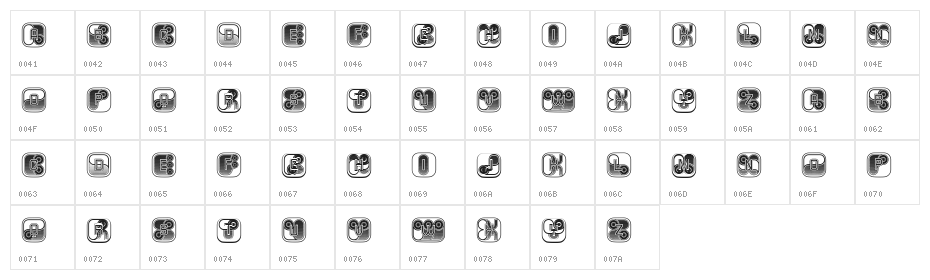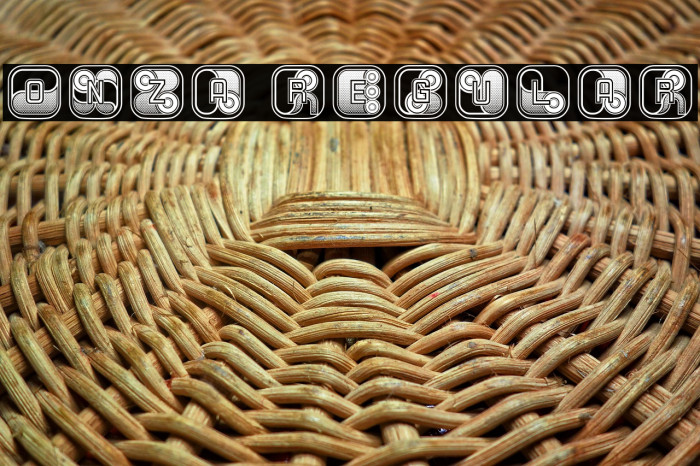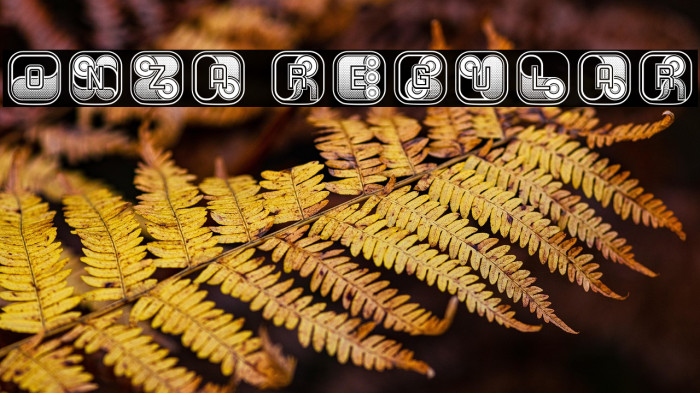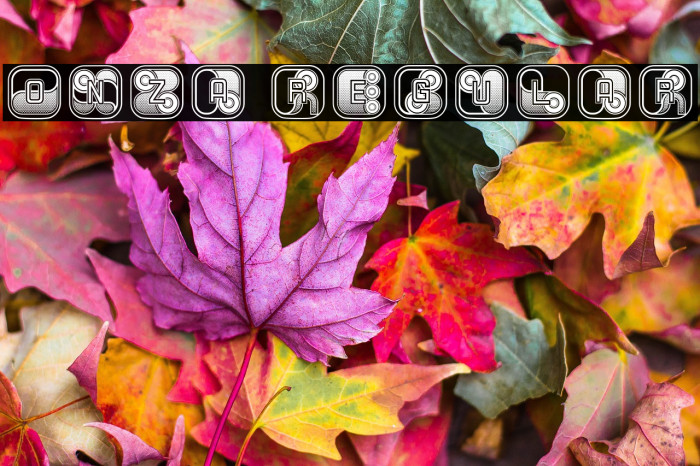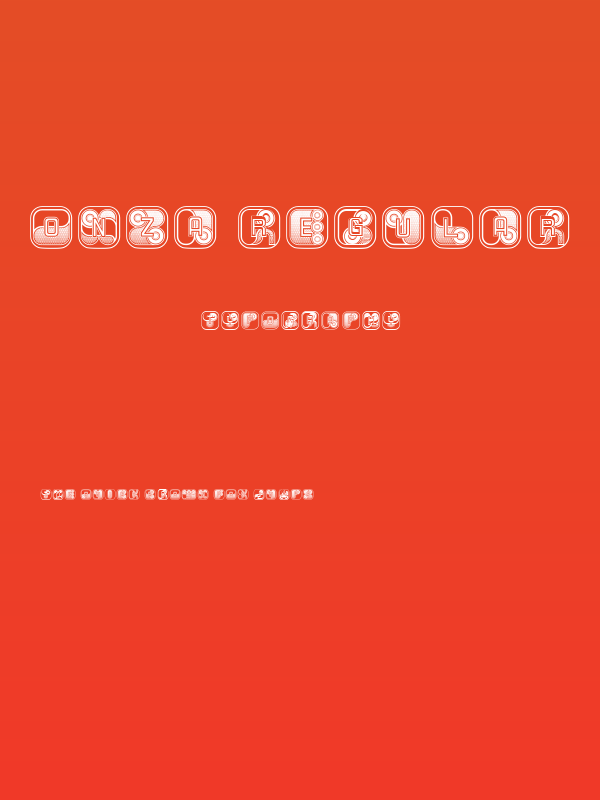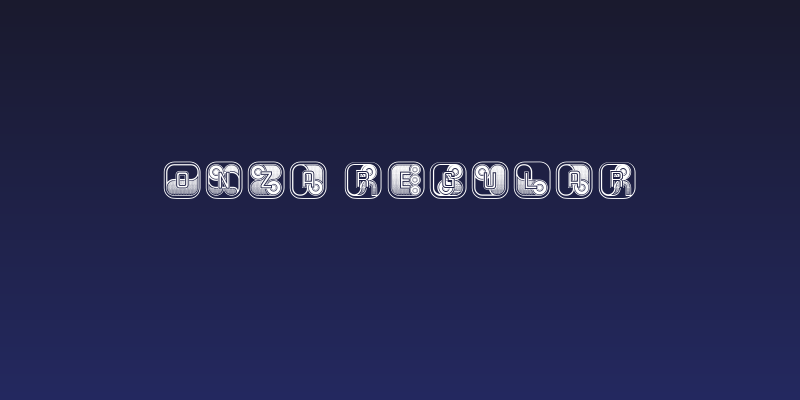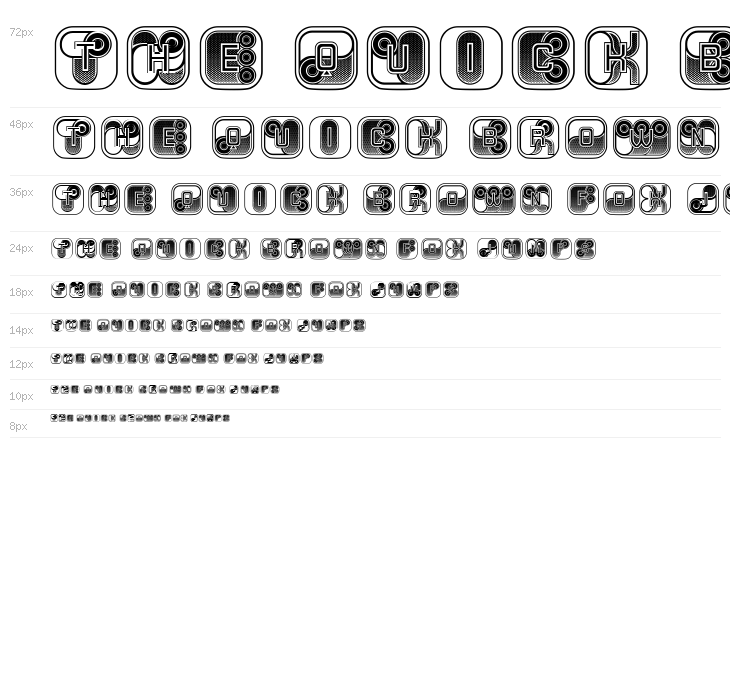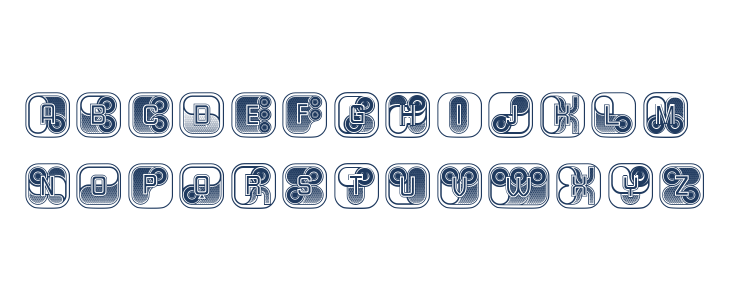
Onza Regular Font
Onza Regular Description
This font features a bold, decorative style with a unique three-dimensional effect. Each character is enclosed within a rounded square, creating a distinct and playful appearance. The letters are designed with intricate patterns and shading, giving them a layered look that stands out. The font's geometric shapes and bold outlines make it highly suitable for eye-catching designs. Its playful yet structured form is ideal for creative projects that require a modern and artistic touch.
| Proposed Projects | Ideal for posters, logos, album covers, and any design requiring a bold, artistic flair. |